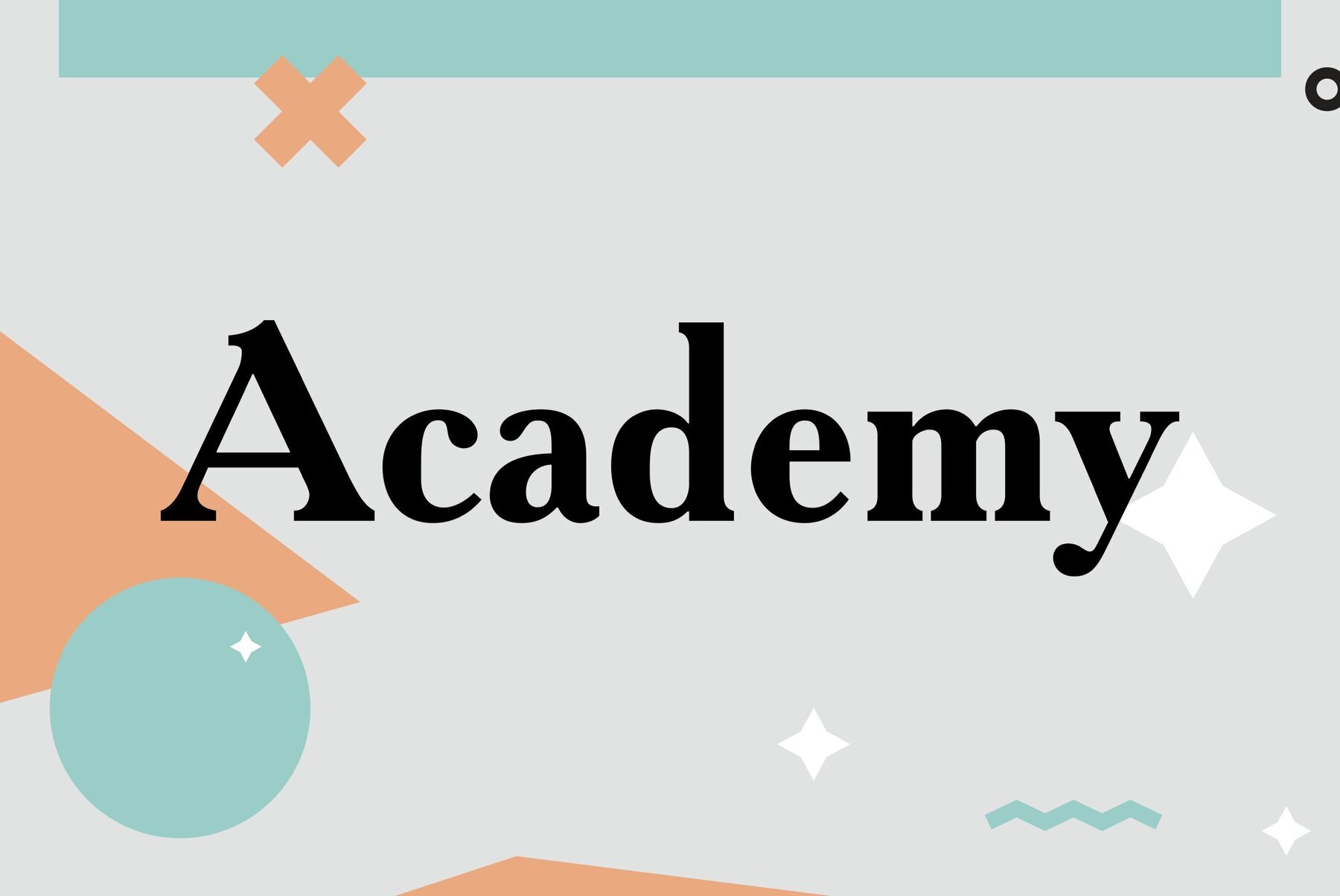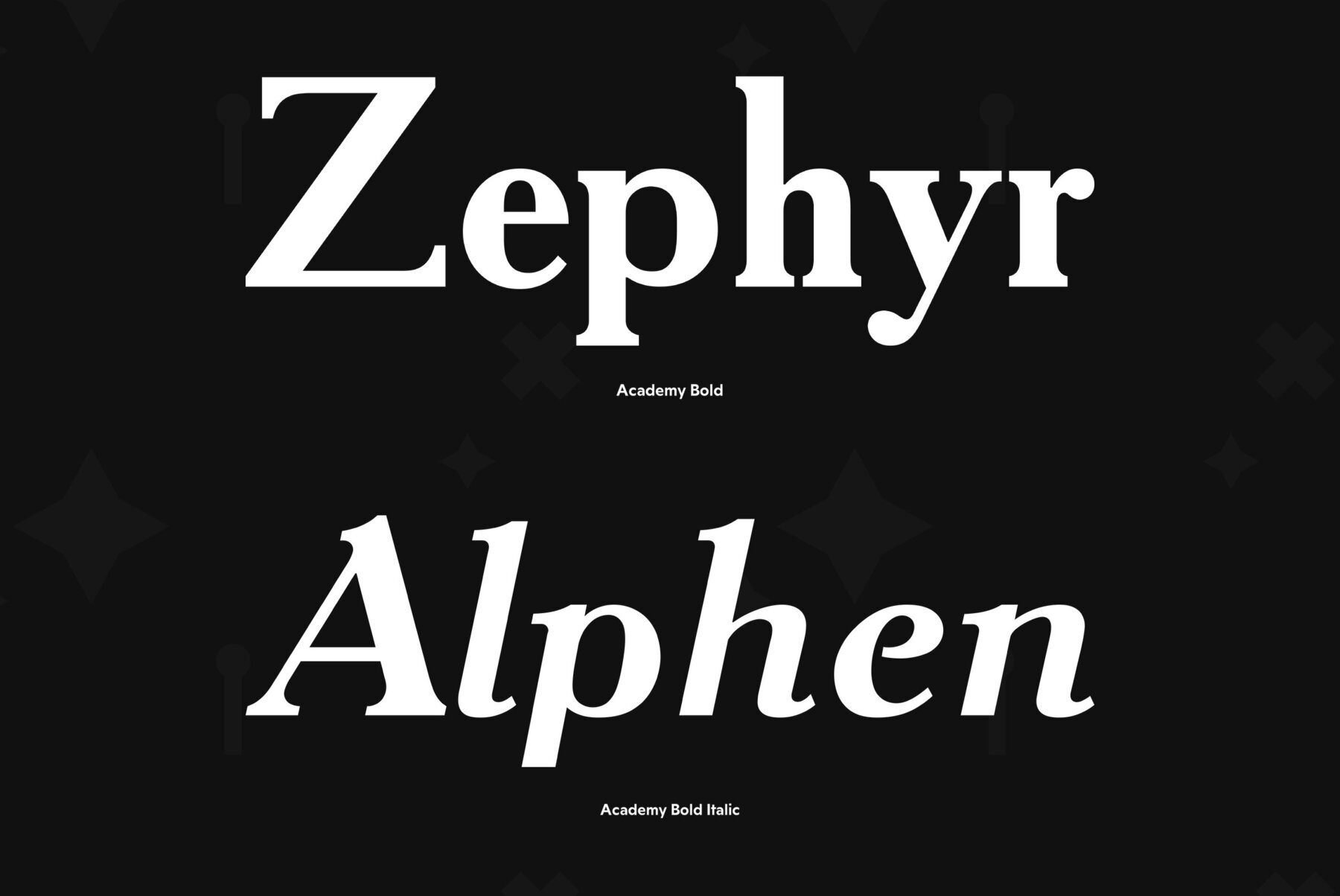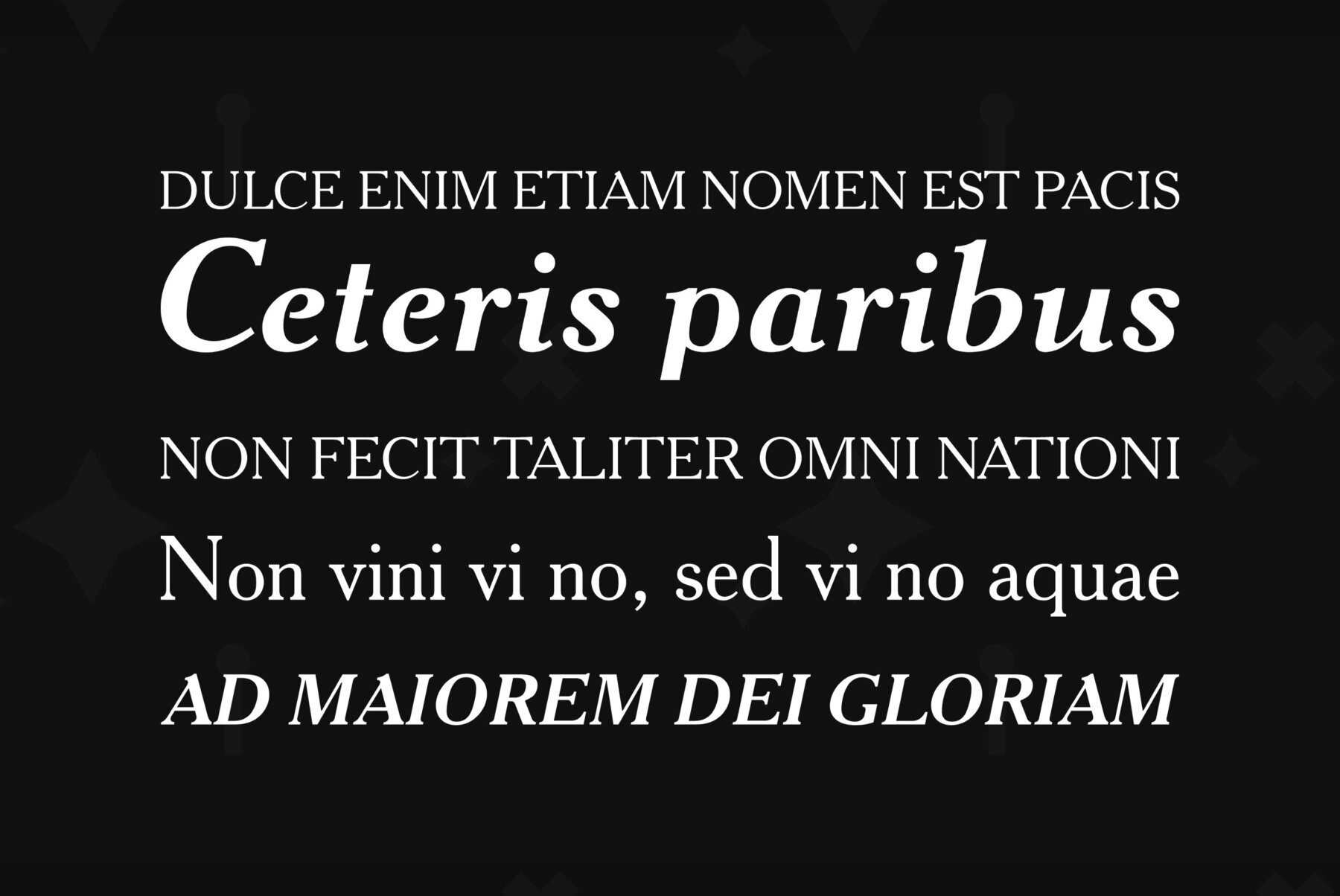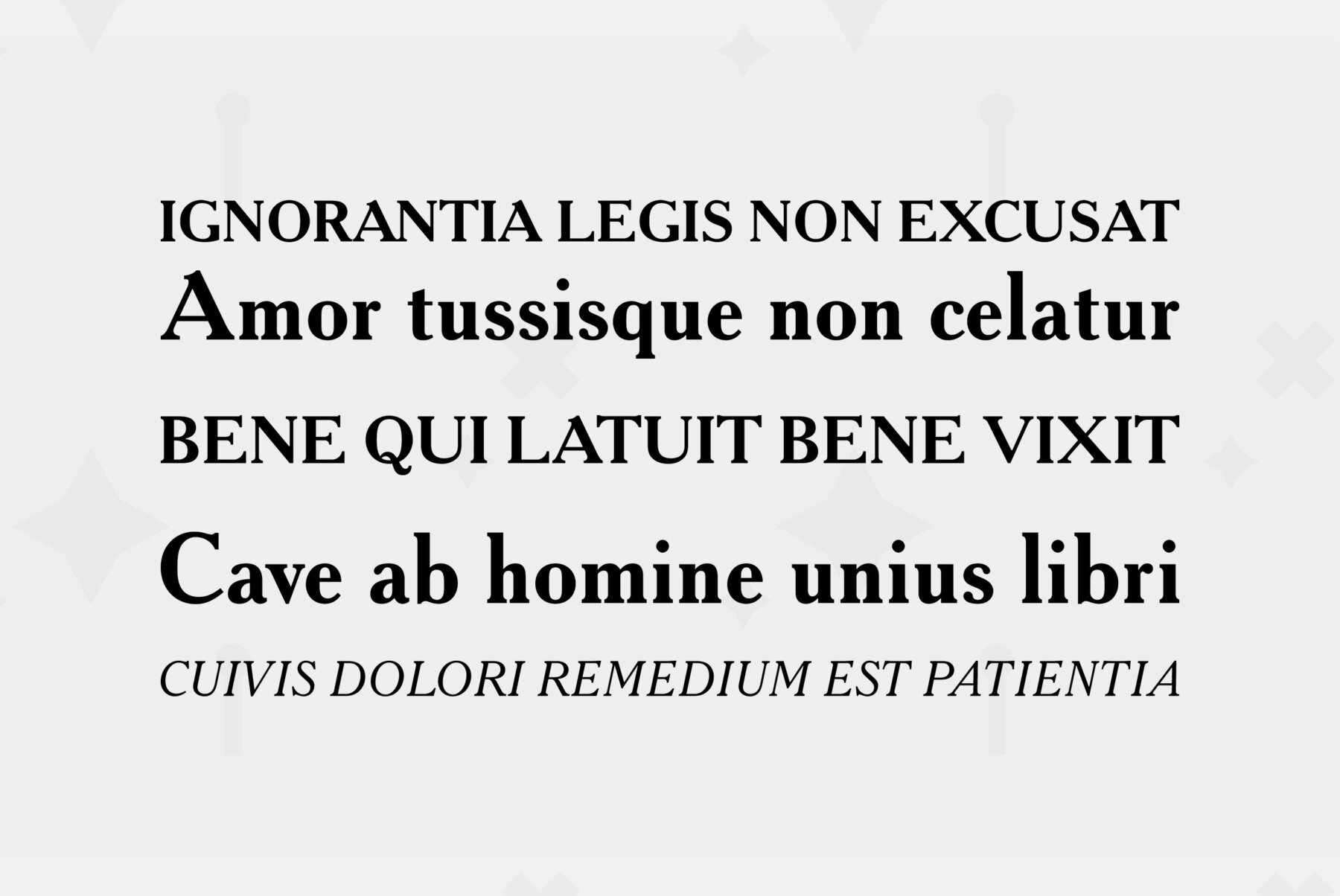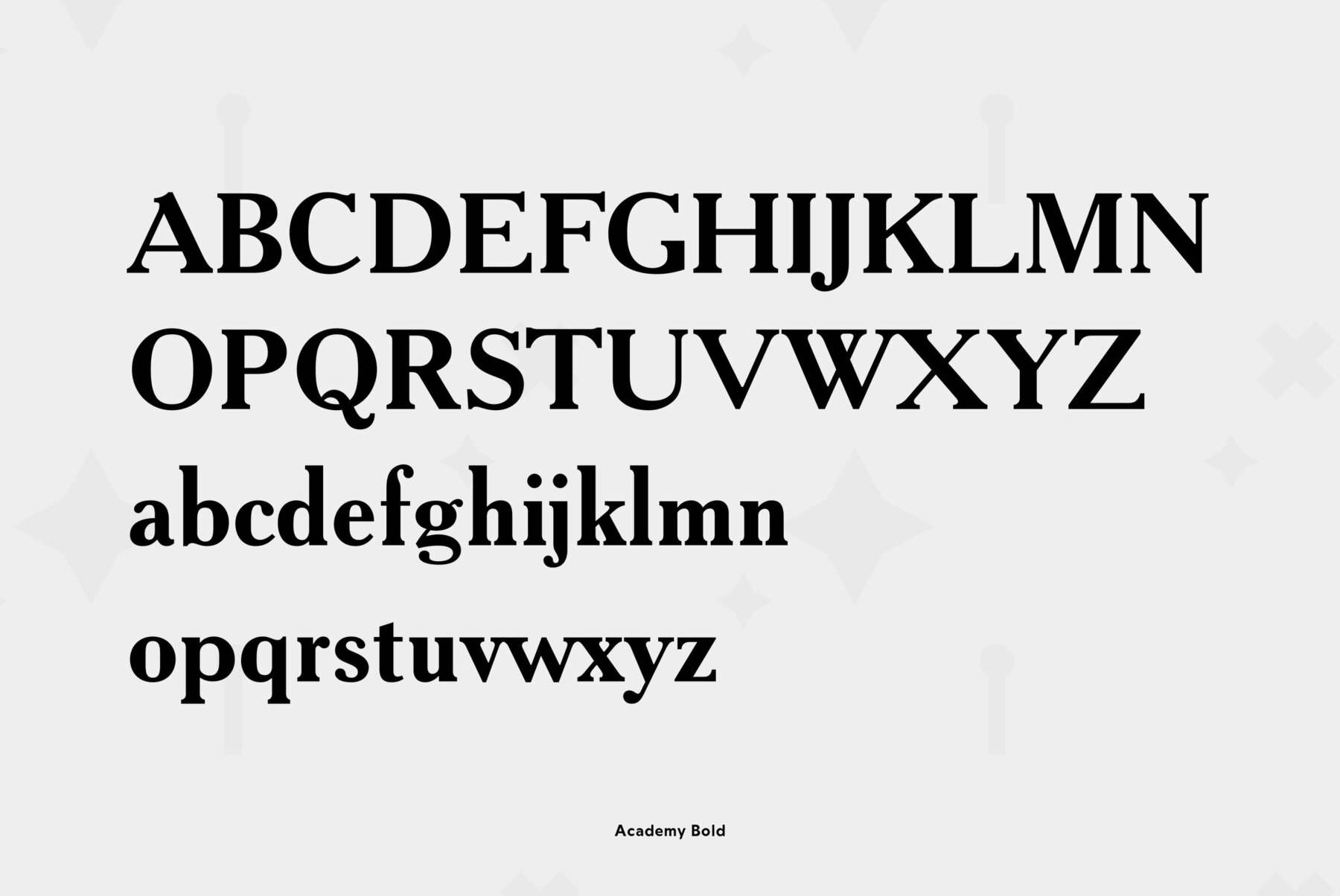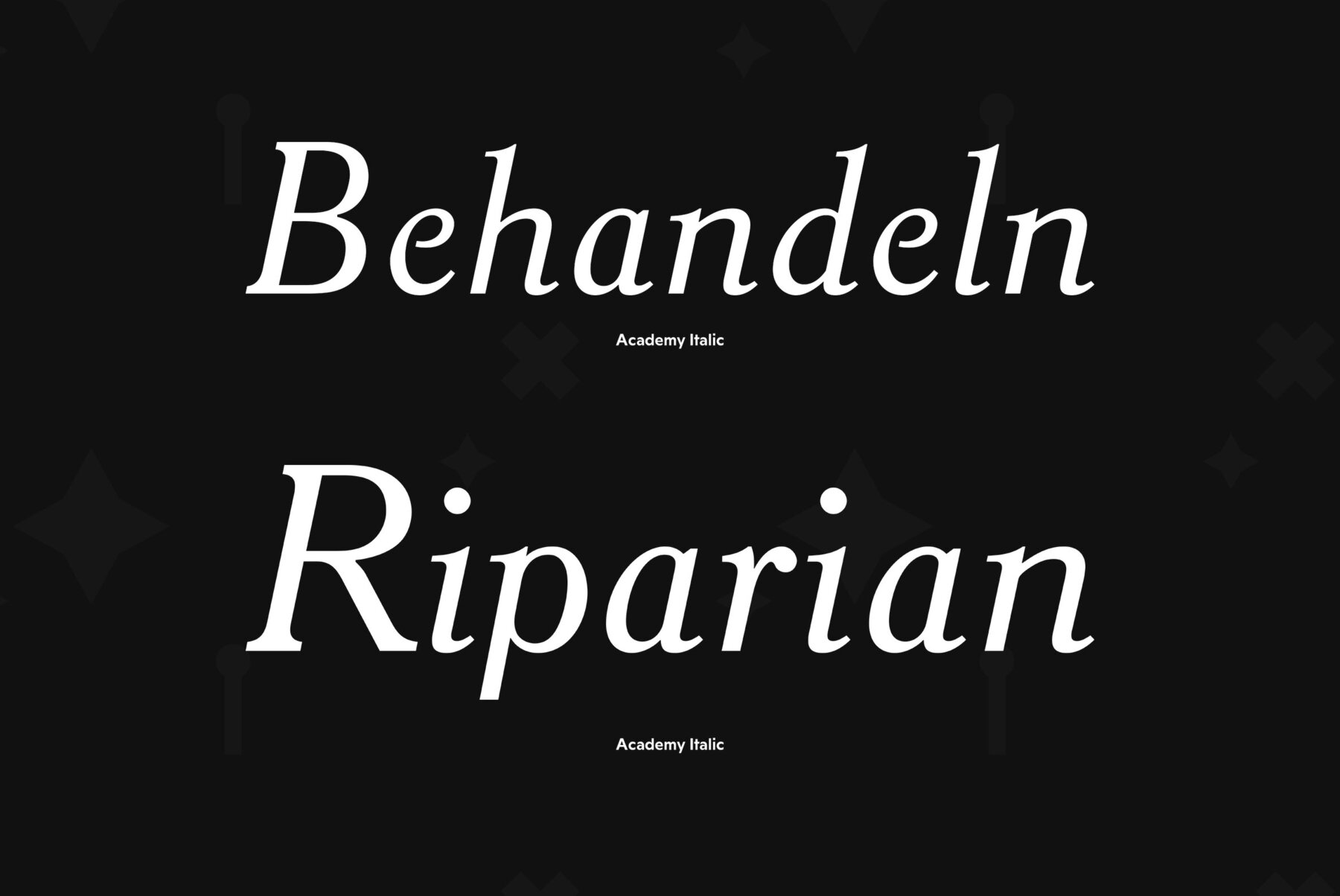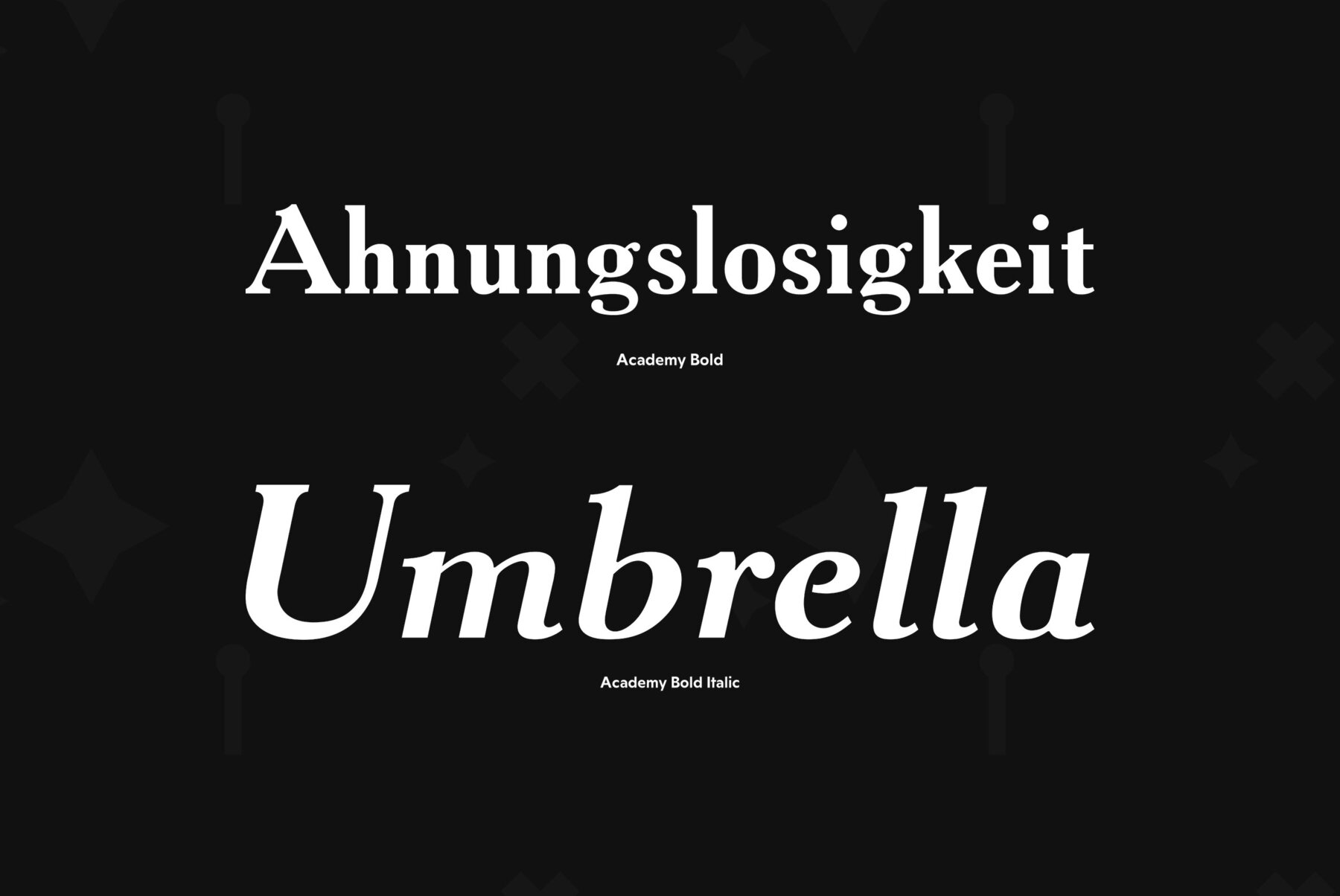
Academy was designed circa 1910 at the Berthold type foundry (St.-Petersburg). It was based on Sorbonne (H. Berthold, Berlin, 1905), which represented the American Type Founders rework Cheltenham of 1896 (designers Bertram G. Goodhue, Morris F. Benton) and Russian typefaces of the mid-18th century. A low-contrast text typeface with historical flavor. The modern digital version was designed at Poligrafmash type design bureau in 1989 by Lyubov Kuznetsova. Corrections and additions were done later in ParaType in early 2000th. Reworked version with Bold Italic style was released in 2009.